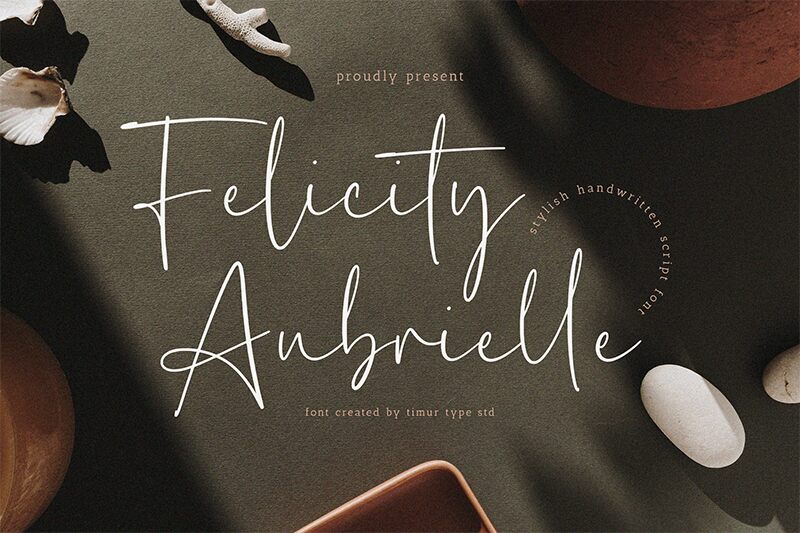
Felicity Aubrielle font, handcrafted by Timur Type, is an elegant and flowing font that exuberates a modern and expressive vibe. This stylish typeface stands out with its sophisticated and distinctive feel, making it ideal for any project where a unique and artistic touch is desired. The dynamic and versatile design of this font allows you to use it in a variety of visual and textual projects easily.
Use Felicity Aubrielle to elevate your boutique branding, fashion magazines, or as a signature logo. Other possible uses include social media posts, website designs, advertisements, product labels, greeting cards, announcements, packaging, invitations, and publishing.
Proudly presenting Felicity Aubrielle, an extraordinary display font designed with small Latin-shaped lines that lend it an elegant and distinctive appearance.
This font captures the essence of personalization with its intricate details and subtle strokes, adding a touch of sophistication to any design or text. Its unique character makes it perfect for creating attention-grabbing titles, logos, or other elements that require a personal, handmade touch.